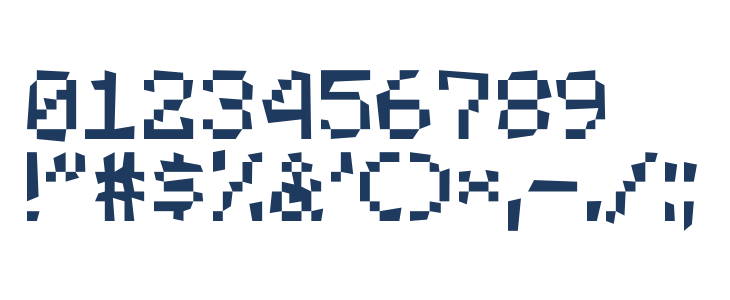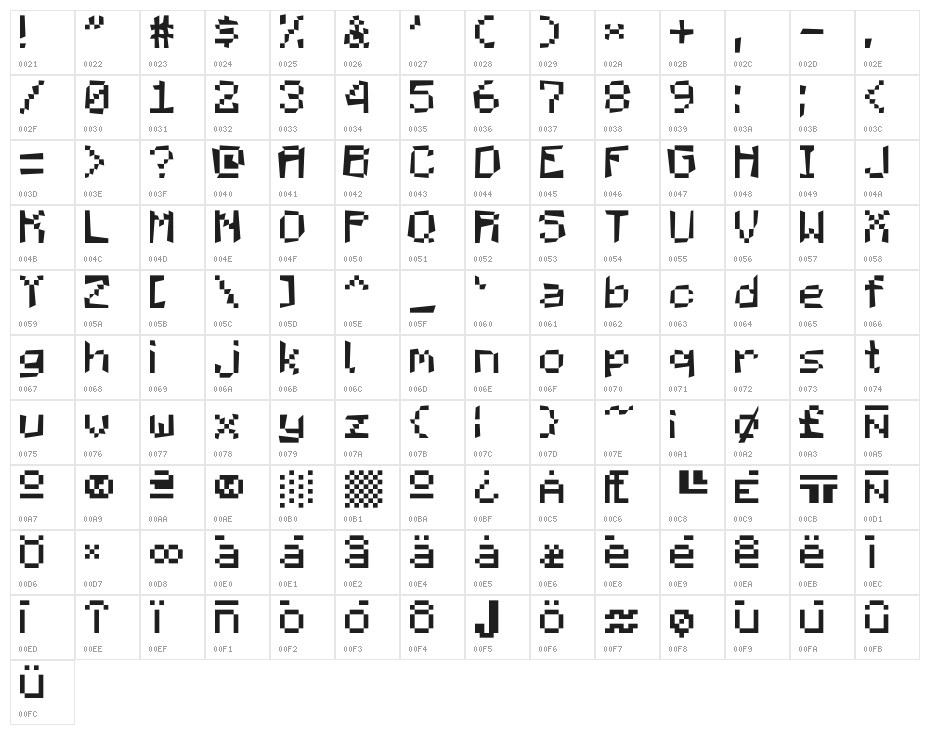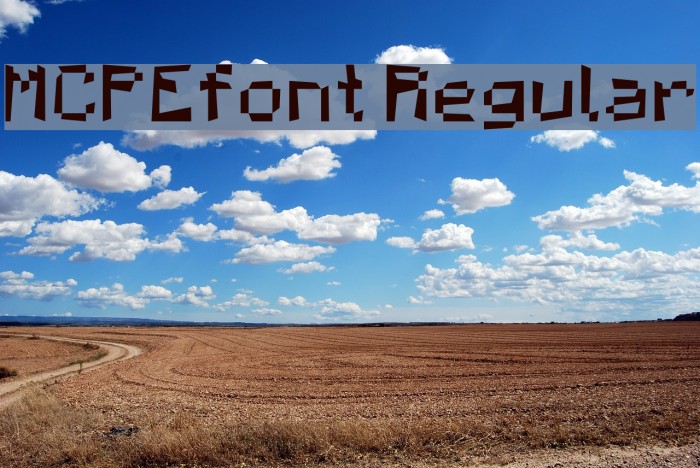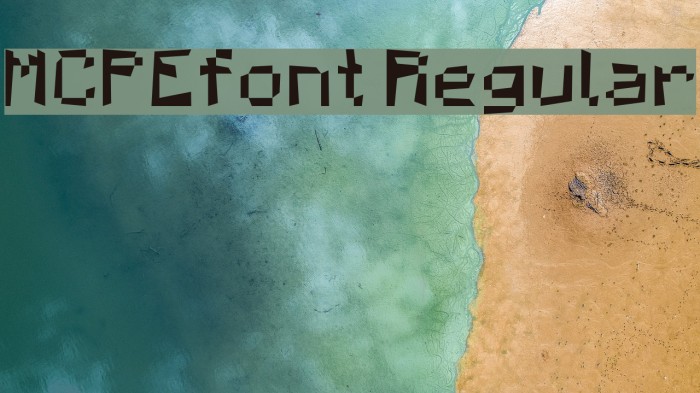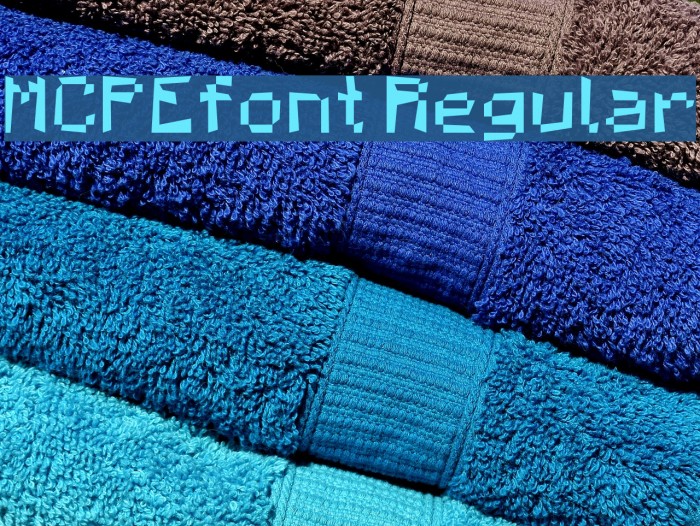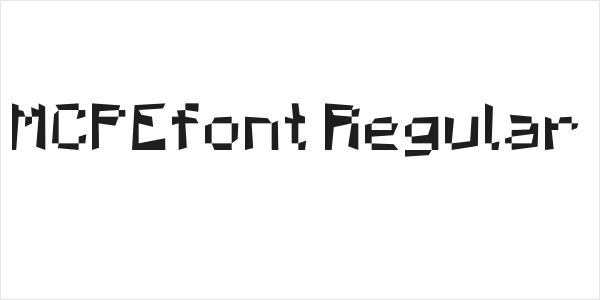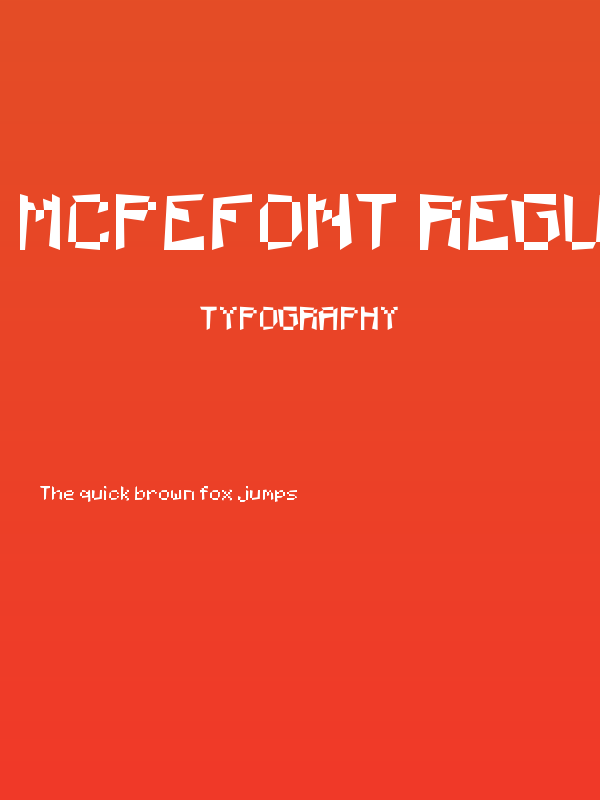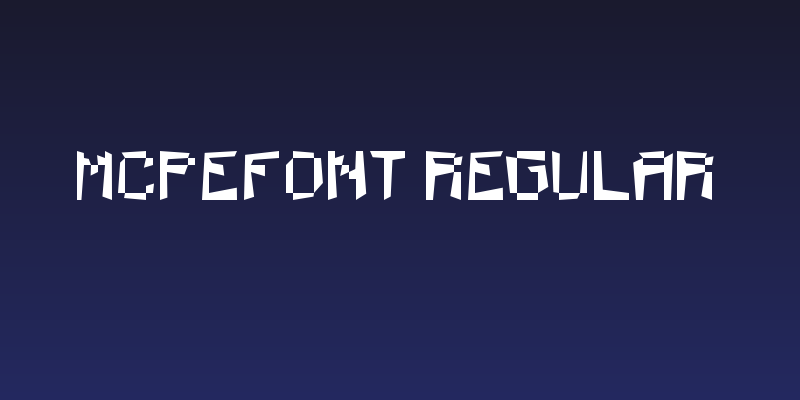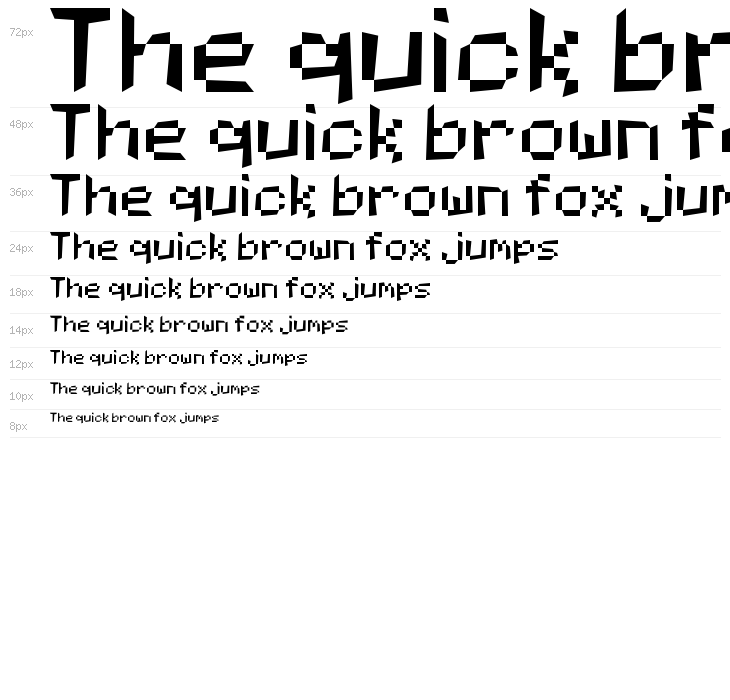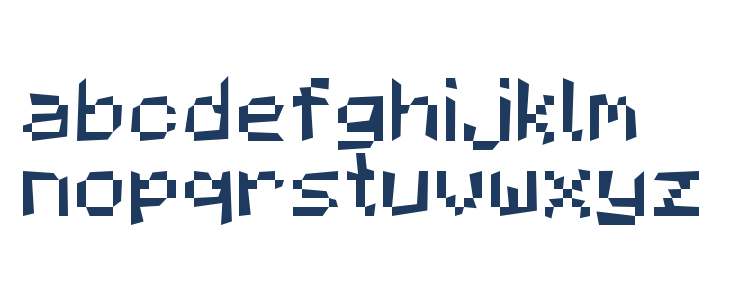
MCPEfont Regular Font
MCPEfont Regular Description
This font features a blocky, pixelated style reminiscent of early digital or video game aesthetics. Each character is constructed with sharp angles and straight lines, giving it a geometric and modern appearance. The uppercase and lowercase letters maintain a consistent height, while the numbers and special characters follow the same angular design. This font is highly legible and distinct, making it suitable for digital displays or themed projects that require a retro or tech-inspired look.
| Overall Style | Modern, Retro |
| Use Case | Headlines, Logos, Digital displays |
| Proposed Projects | Ideal for video game graphics, digital art projects, tech-themed posters, and retro-style branding. |